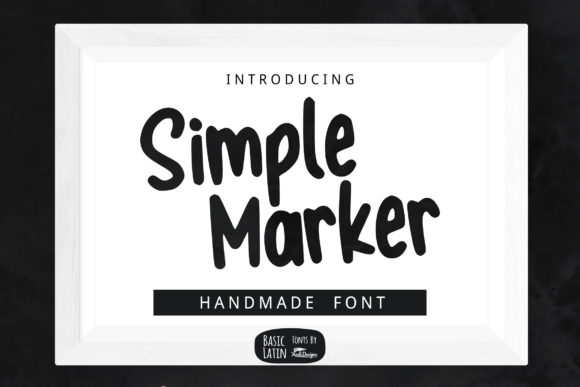
Simple Marker Font
Font Name : Simple Marker Font
Author : YandiDesigns
Embrace the beauty of handwritten charm with Simple Marker Font, a delightful sans serif font that exudes warmth and playfulness. Created by the talented YandiDesigns, this font is an artistic masterpiece that will transform your creative visions into stunning realities. Step into a world of endless possibilities, where your words dance across the page with an irresistible charm that captivates and enchants.
Simple Marker Font is not just another font; it's an expression of your individuality, a reflection of your unique style. Its flowing lines and graceful curves create an aesthetic that is both timeless and contemporary, making it perfect for a wide range of projects. Whether you're a seasoned designer, a social media enthusiast, or simply someone who appreciates the art of beautiful lettering, Simple Marker Font is your perfect companion.
Dive into a sea of creativity with Simple Marker Font and let your imagination soar. Its versatility knows no bounds, making it the ideal choice for Instagram posts that demand attention, eye-catching logos that leave a lasting impression, or heartfelt wedding invitations that convey your love and joy. Unleash your inner artist and explore the endless possibilities that await you.
With Simple Marker Font, you'll discover a treasure trove of gorgeous swashes and ligatures, those elegant connecting lines that add an extra touch of sophistication and charm to your words. These intricate details elevate your designs, transforming them from ordinary to extraordinary. Prepare to be mesmerized as your creations come to life, infused with a captivating energy that speaks volumes.
Simple Marker Font is more than just a collection of characters; it's an invitation to embark on a creative journey, to explore the depths of your imagination and bring your dreams to life. Its friendly feel reaches out, connecting you with your audience in a genuine and authentic way. Let Simple Marker Font be your storyteller, weaving tales of love, laughter, and adventure through the magic of your words.
Don't settle for ordinary fonts that blend into the background. Choose Simple Marker Font, the font that dares to stand out, to make a statement, to leave an unforgettable impression. Its enchanting beauty will captivate your audience, leaving them spellbound by your creative brilliance.